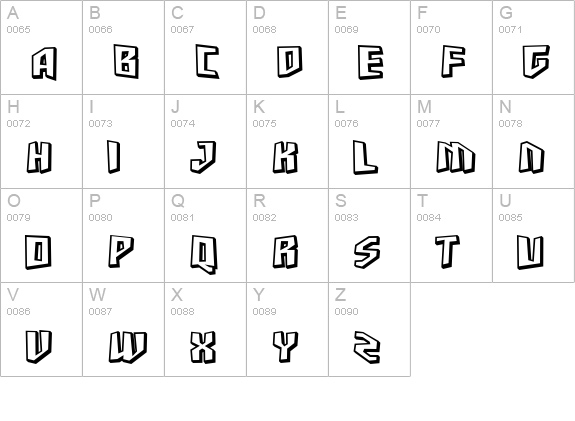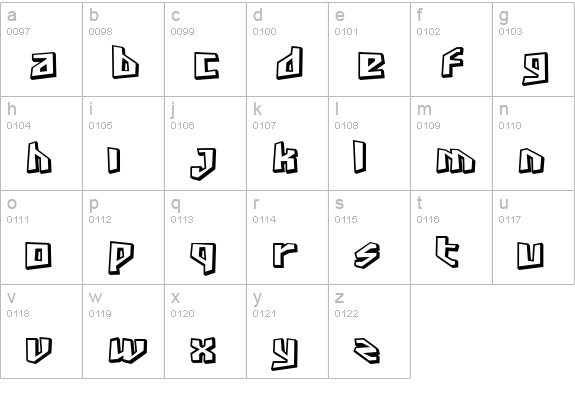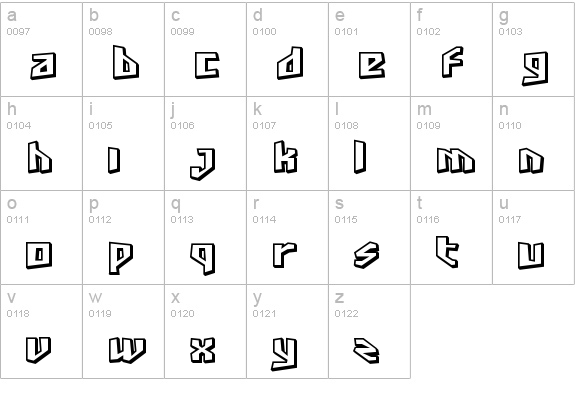
SF Junk Culture Shaded Font Details
SF Junk Culture Shaded font is a unique and captivating typeface that effortlessly combines the energy of street art with the sleekness of modern design. This font is perfect for those who want to add a touch of urban flair to their projects, giving them a bold and edgy aesthetic. The SF Junk Culture Shaded font features a distinct shading effect that adds depth and dimension to each character, making them visually striking and impactful. Whether you're designing a poster, creating a logo, or crafting a social media graphic, this font will make your text stand out and grab attention. What makes SF Junk Culture Shaded font even more impressive is that it is completely free. Yes, you read that right – this incredible typeface can be downloaded for free at FontsMarket.com. This means that you can access and use this font without any restrictions, allowing you to unleash your creativity without any limitations. With SF Junk Culture Shaded font, you have the freedom to explore and experiment, pushing the boundaries of typography and design. Its versatility makes it suitable for a wide range of projects, from urban-themed designs to modern advertisements and everything in between. The attention to detail in SF Junk Culture Shaded font is evident in every curve and line, making it a true work of art. Each character has been meticulously crafted to ensure smooth legibility, while the shading effect adds an extra layer of visual interest. So, if you're looking for a font that exudes urban coolness and is freely available to download, look no further than SF Junk Culture Shaded font. Download it today from FontsMarket.com and let your creativity shine with this one-of-a-kind typeface.